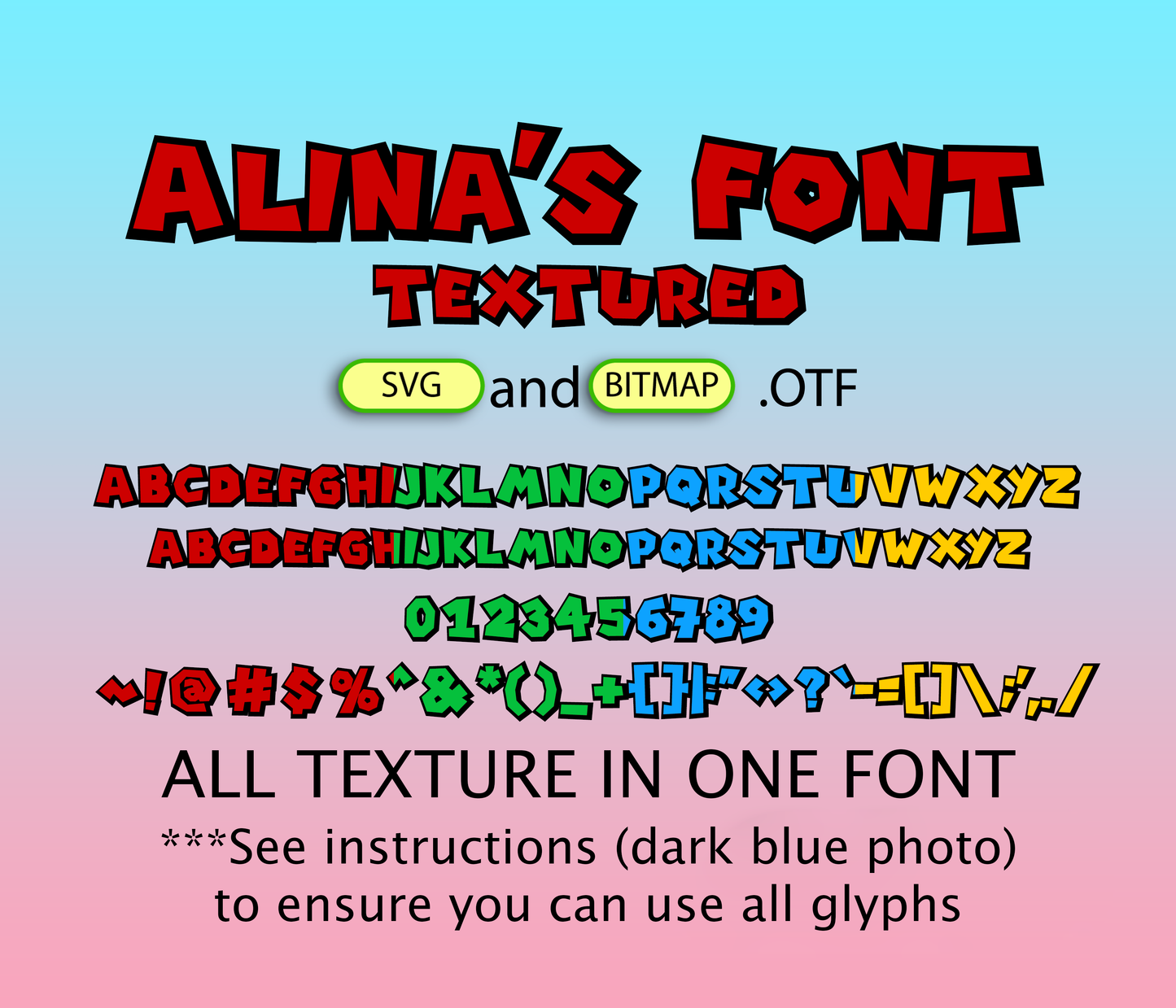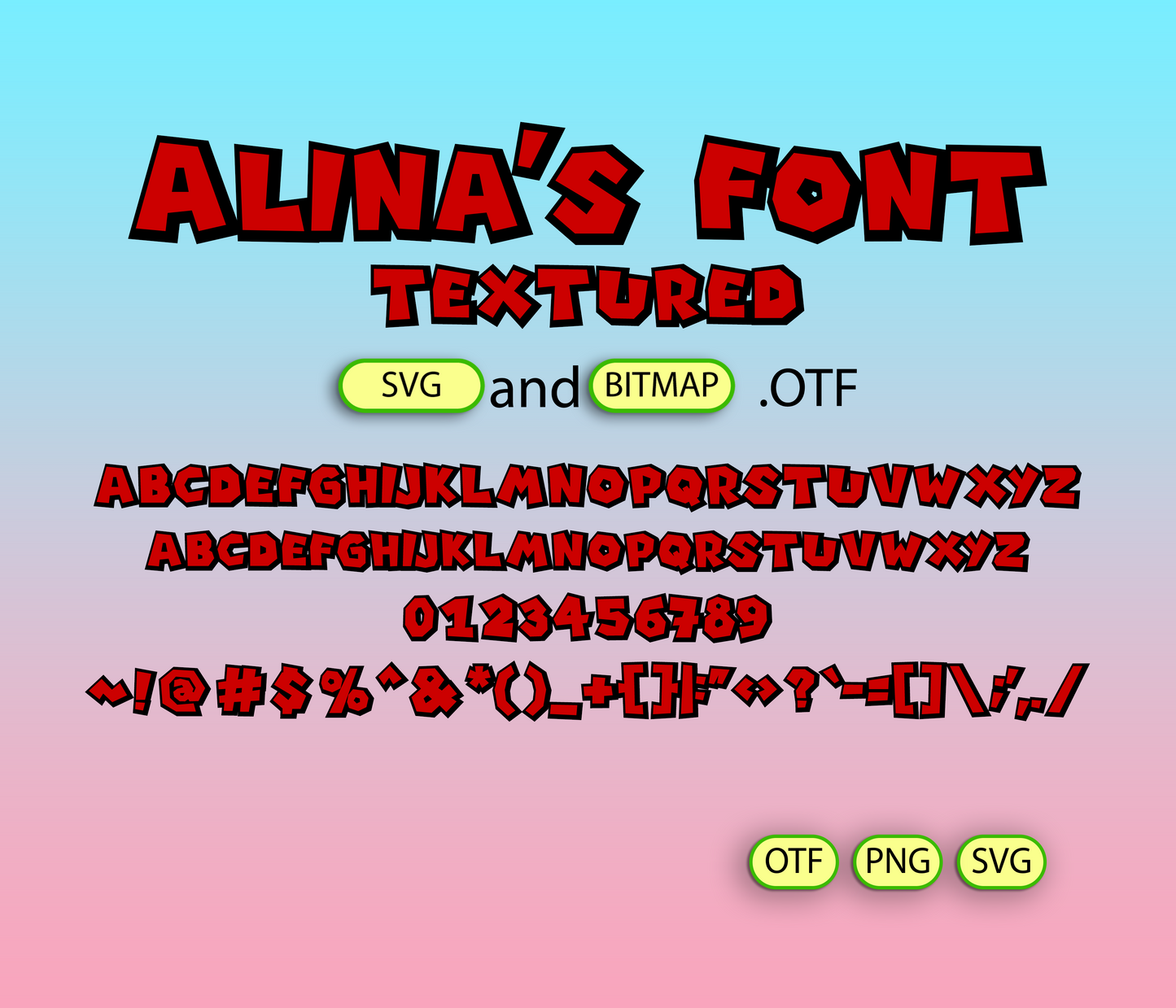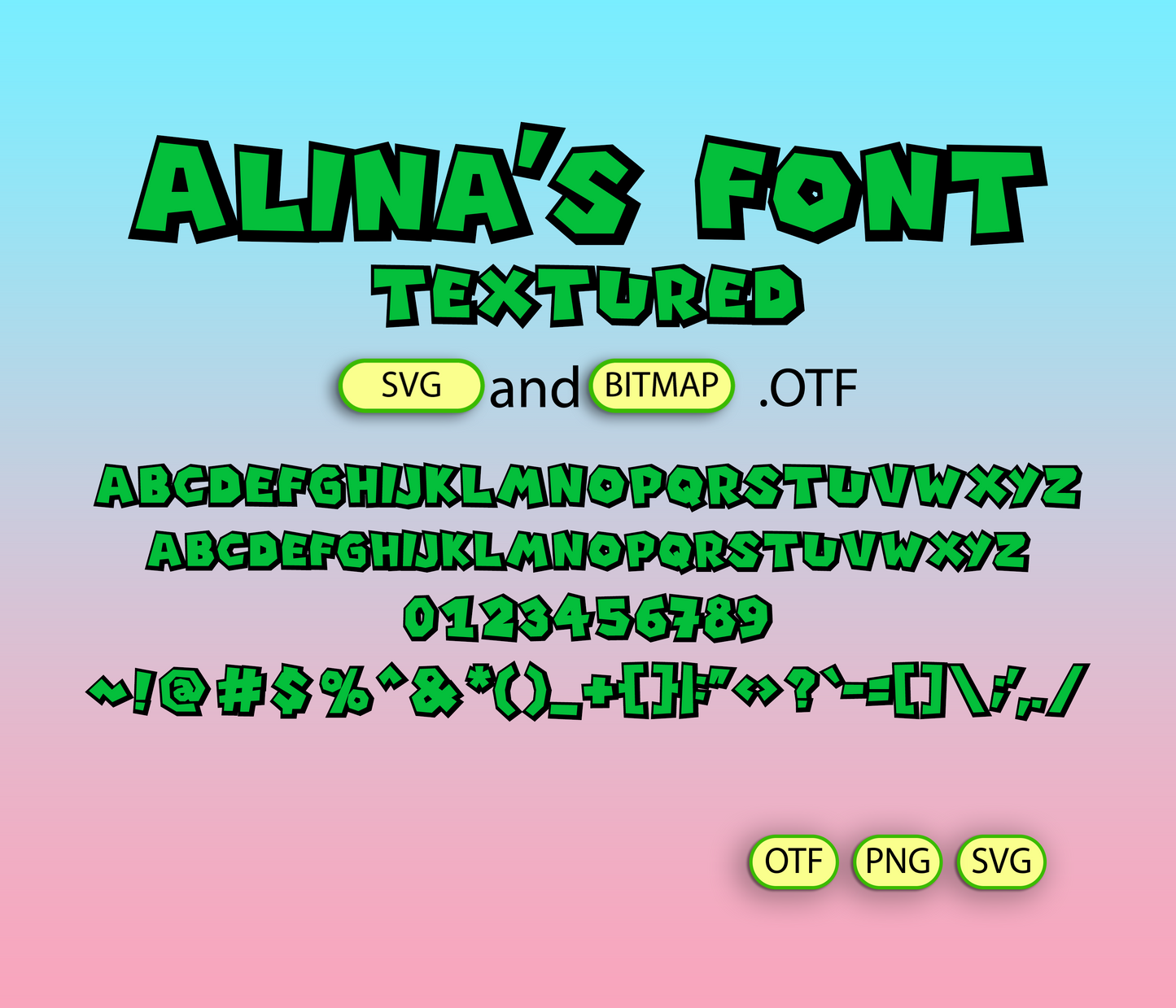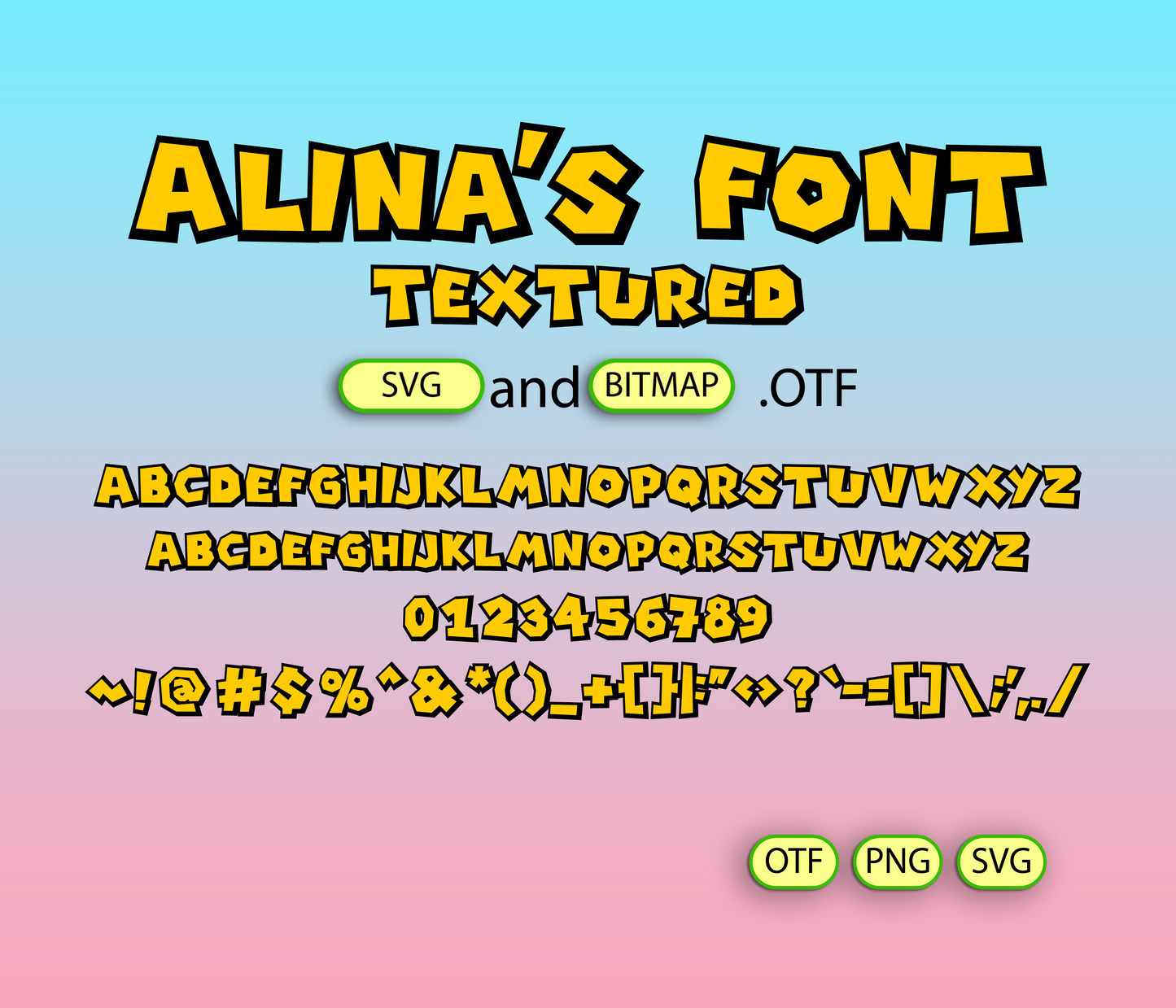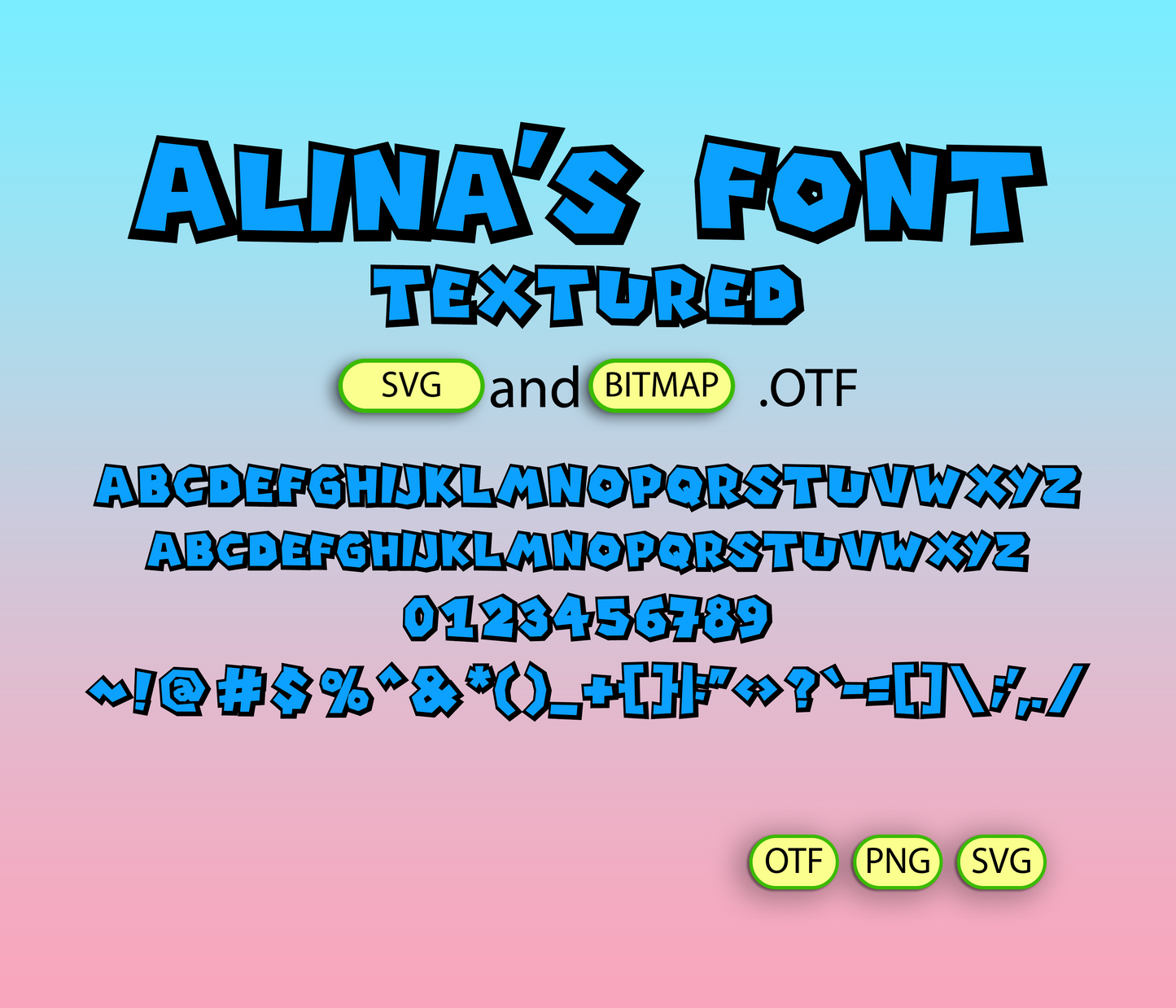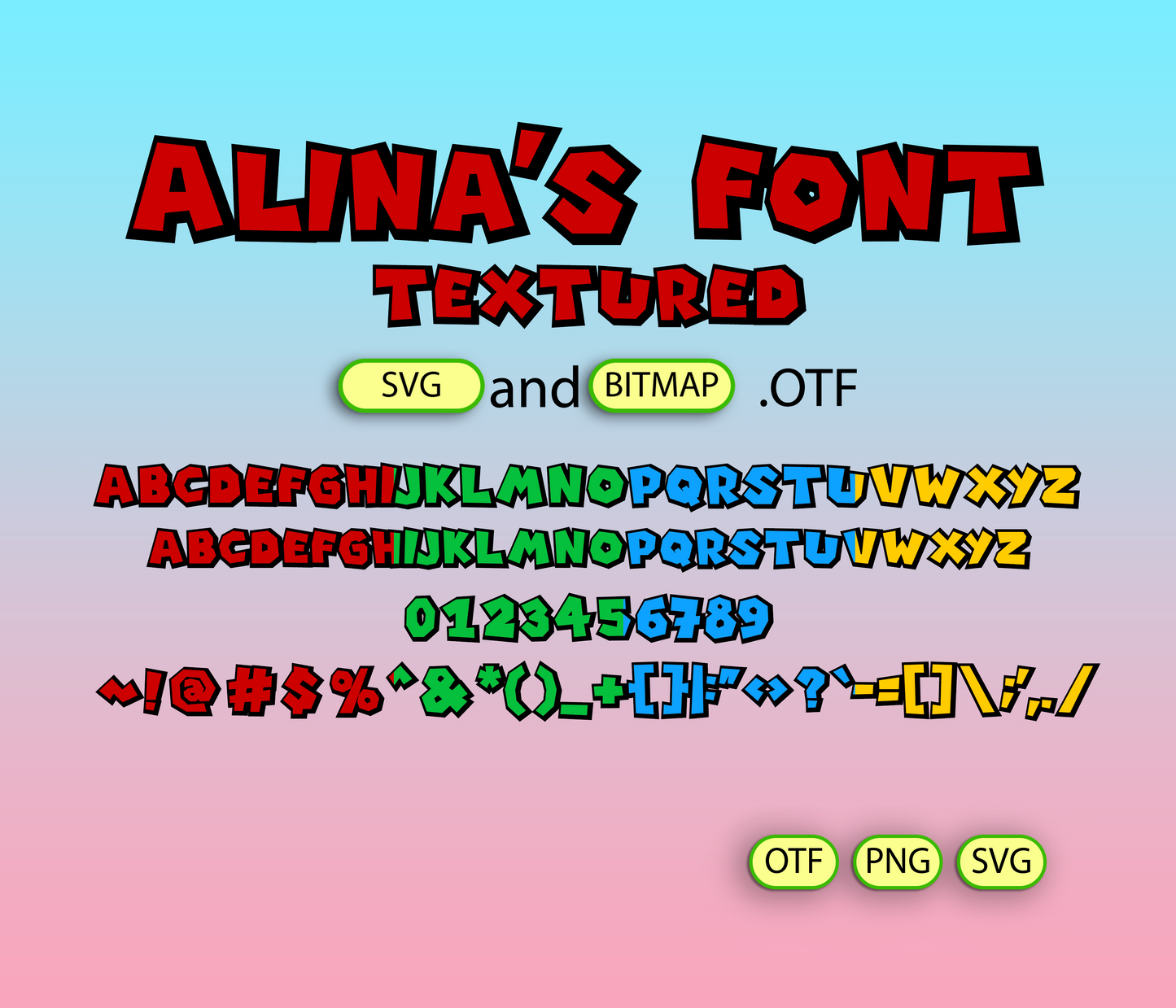
Jump into the whimsical world of mushroom kingdoms with our Plumber's Adventure font. This playful typeface captures the essence of retro gaming's most beloved handyman hero and his fantastic quests. Perfect for projects that aim to evoke nostalgic platformer fun and pixelated adventures.
Our Plumber's Adventure font features bouncy, block-style characters with a touch of coin-collecting charm, reflecting the energetic spirit of classic gaming. Ideal for:
- Gaming Events: Design eye-catching banners for retro gaming tournaments
- Pixel Art Projects: Create authentic-looking titles for 8-bit style creations
- Arcade Decor: Develop signage for classic gaming spaces and entertainment centers
- Digital Media: Craft engaging headers and graphics for gaming websites and social media
- Birthday Celebrations: Design invitations and decorations for gaming-themed parties
- Power-Up Products: Produce t-shirts, posters, and accessories featuring jumping heroes
- Kids' Play Areas: Create fun signage for game rooms and entertainment spaces
- Quest-themed Events: Design materials for adventure-based activities and challenges
Whether you're crafting promotional materials for a retro gaming event, designing merchandise for platform game enthusiasts, or adding a touch of coin-collecting charm to personal projects, this font communicates the joy and excitement of classic gaming adventures. Ready to bring the spirit of mushroom kingdom quests to your creations? This font is your power-up to playful, impactful design.